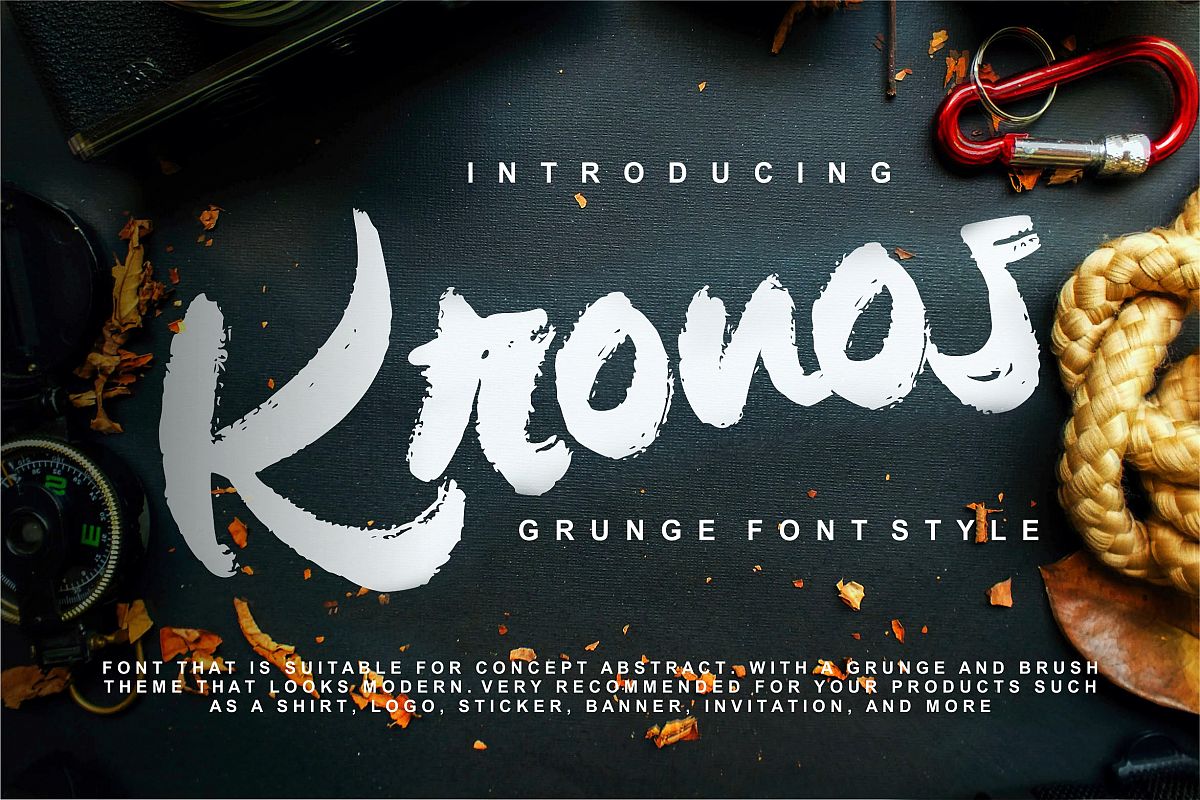
Kronos | Grunge Brush Typeface
Kronos
Kronos | Grunge Brush Typeface with a calligraphy style, So beautiful on invitation like greeting cards, branding materials, business cards, quotes, posters, and more!The alternative characters were divided into several features such as Stylistic Sets, Stylistic Alternates, Contextual Alternate, SWASH and Ligature. The Open Type features can be accessed by using Open Type savvy programs such as Adobe Illustrator, Adobe InDesign, Adobe Photoshop Corel Draw X version, And Microsoft Word. And this Font has given PUA unicode (specially coded fonts). so that all the alternate characters can easily be accessed in fullWhat’s Included :
• Hundred of glyphs
• Alternates and Ligatures
• Fonts include Multilingual Support